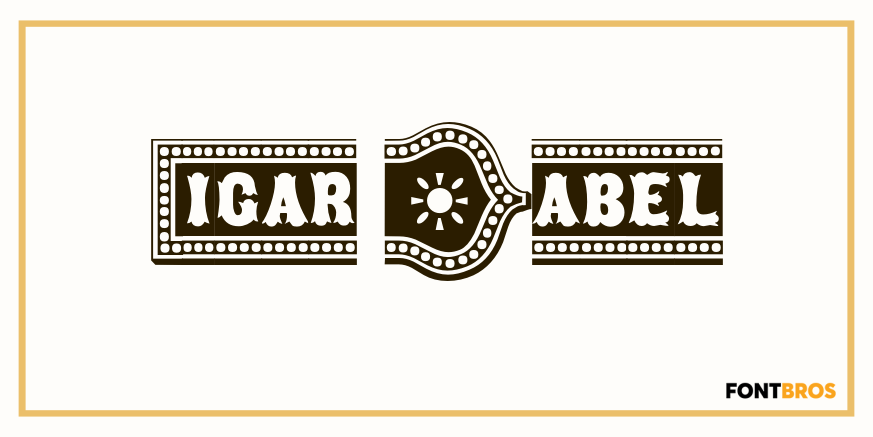
Baraboo Banner
Font Family by Solotype
This was put together by Dan X. Solo to provide a quick way to set headings for a circus brochure.
The name was given in recognition of the Baraboo Circus Museum. The end pieces are in pairs on the uppercase keys A-B, C-D, etc. The alphabet itself is in the lowercase position.